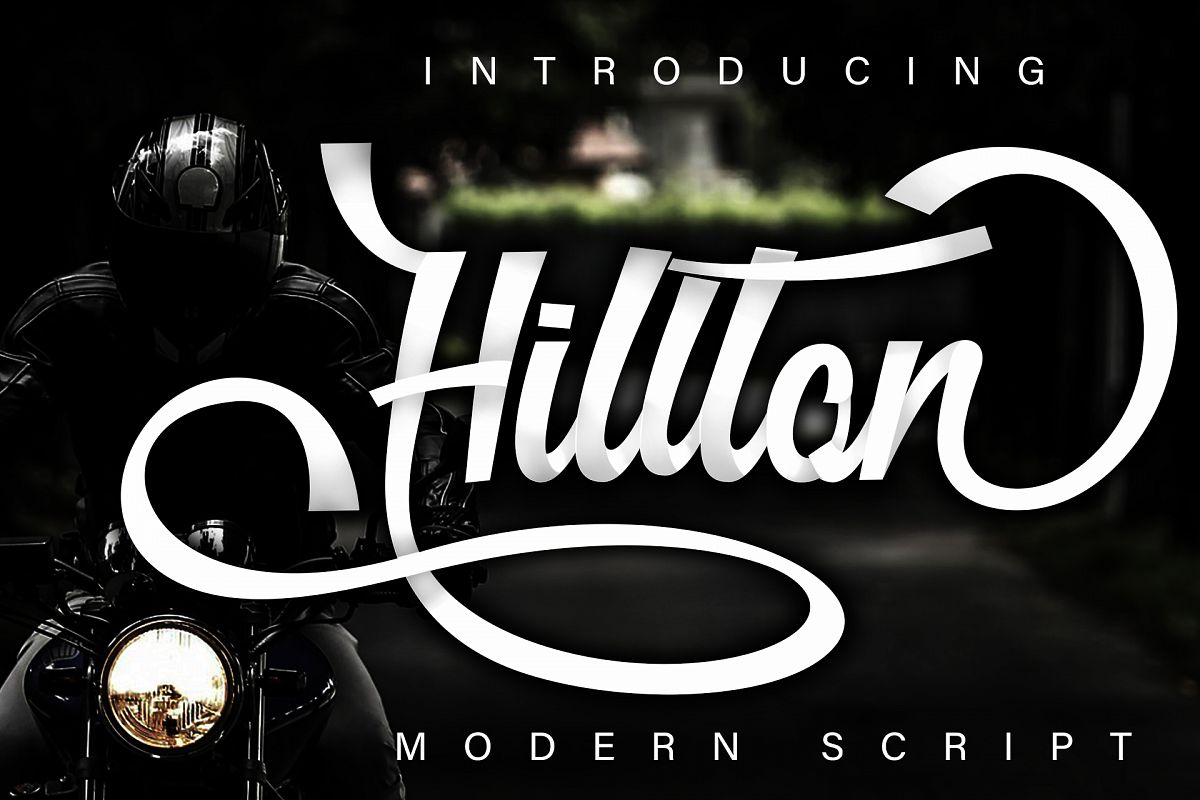
Hillton modern script
Hillton
Hillton is a beautiful modern script font with an alternative blend of more than 150 alternet (opentype) features suitable to support your design, for business, company, brands, clothes, books, and more